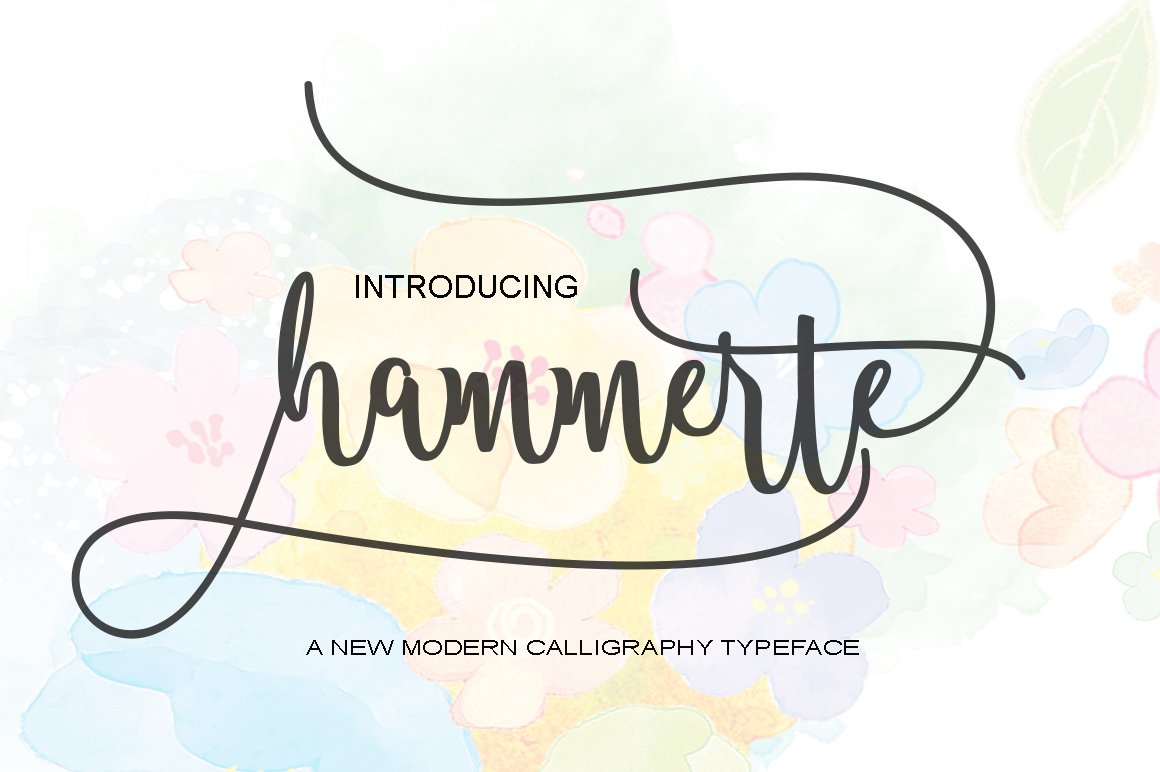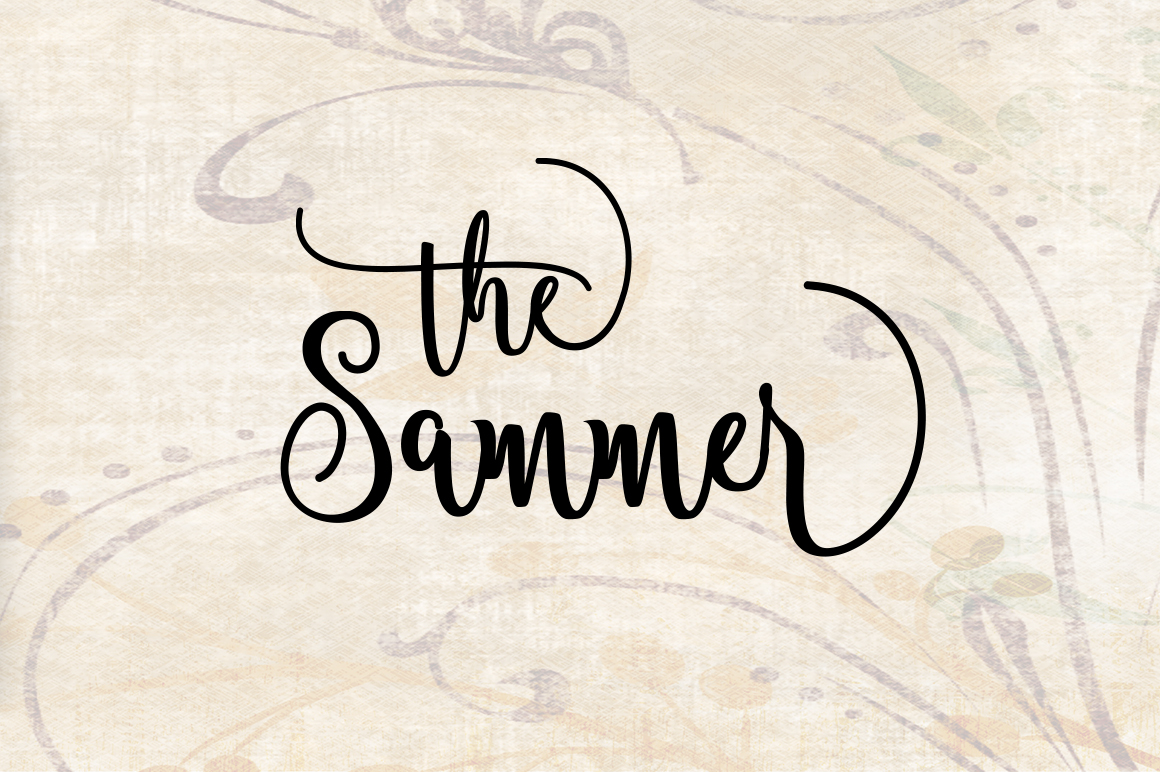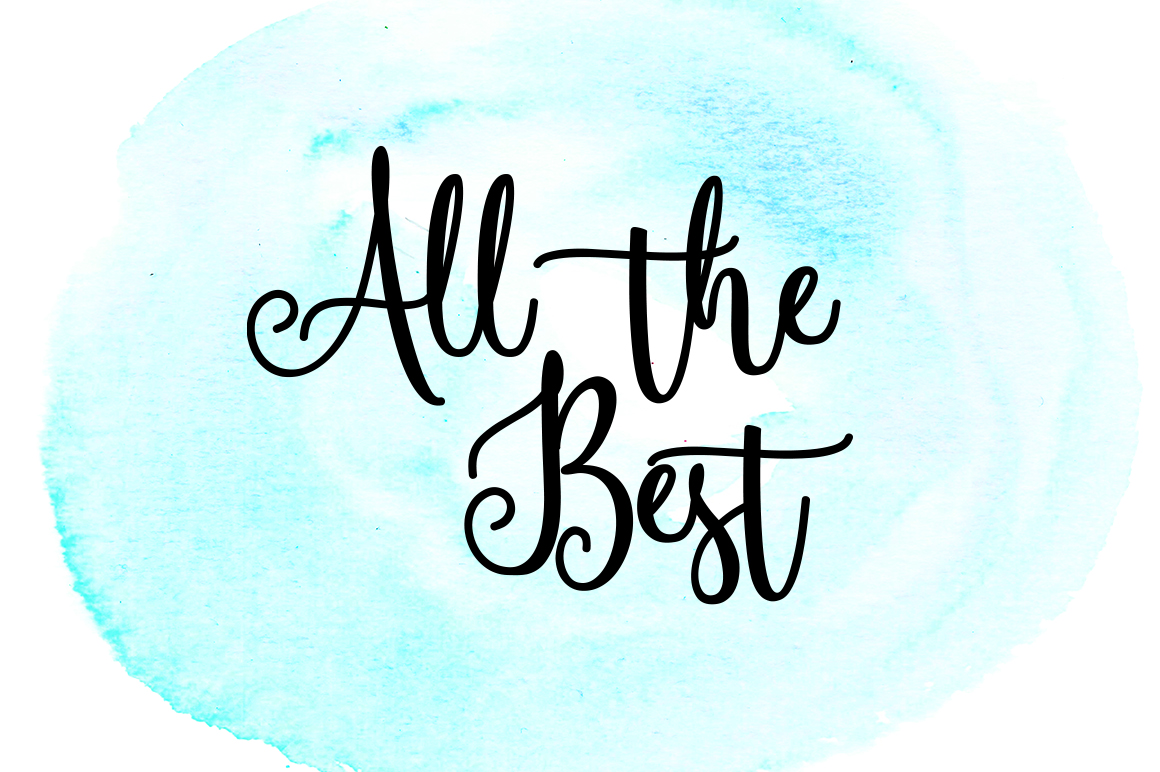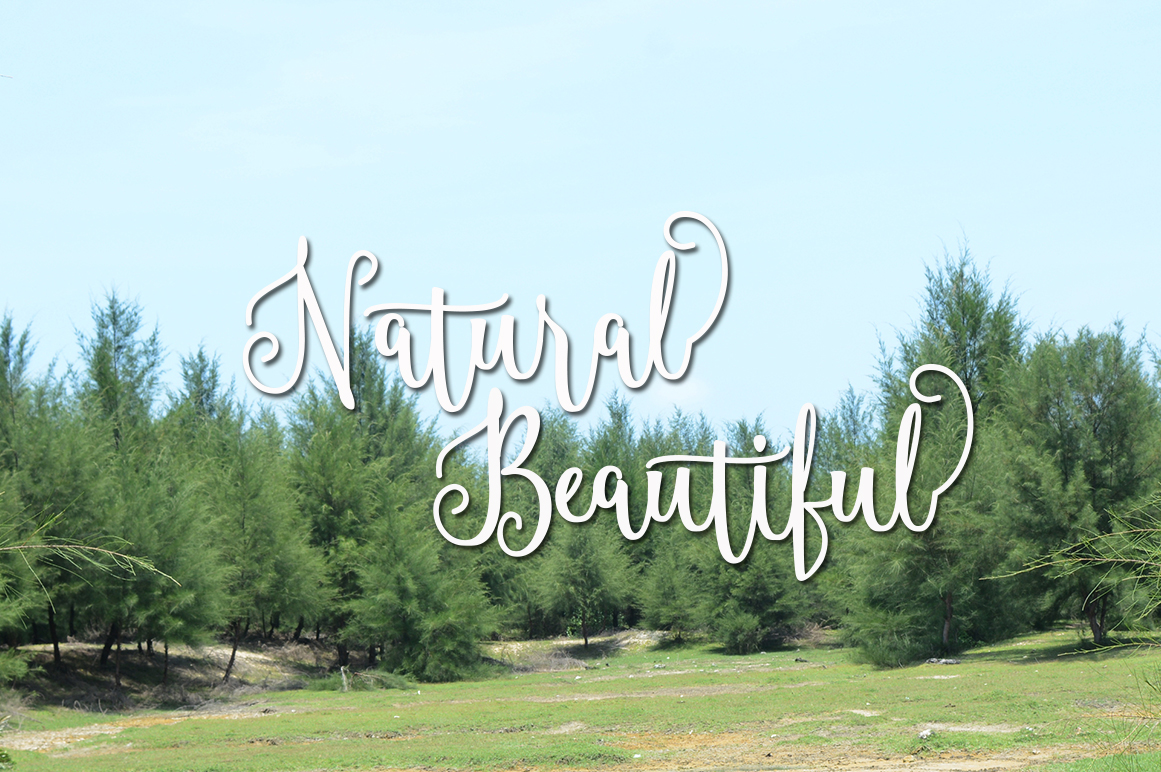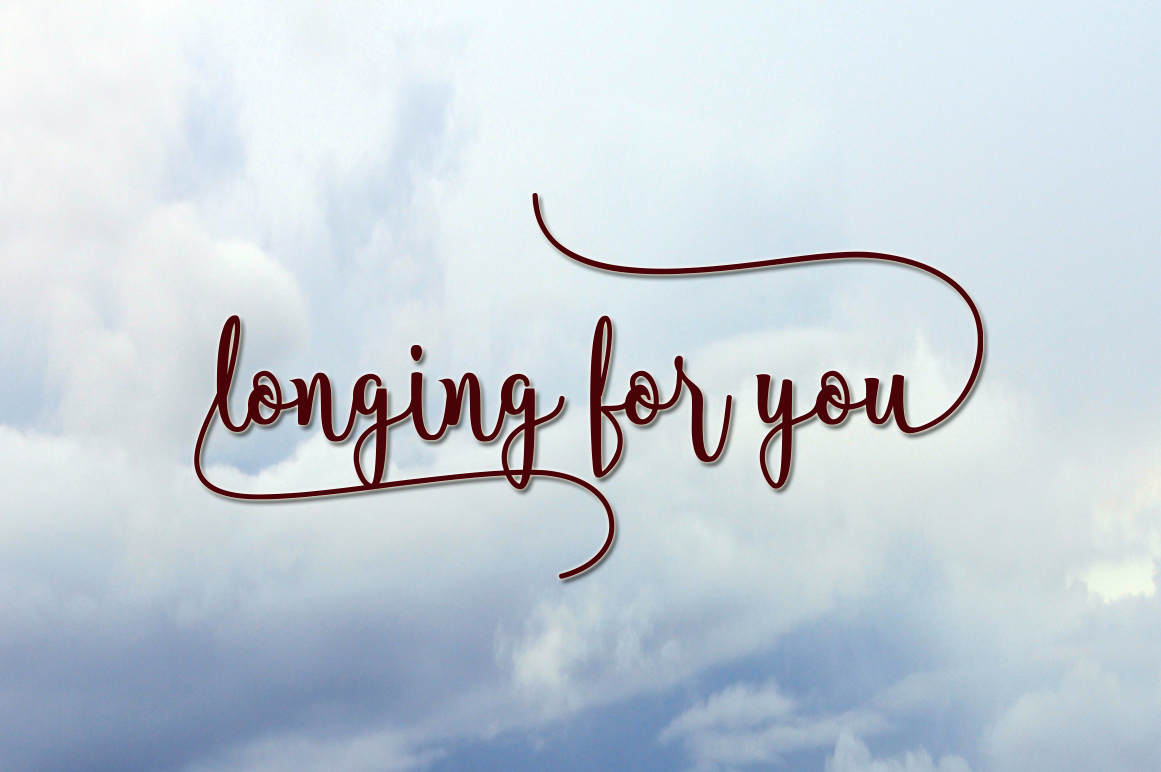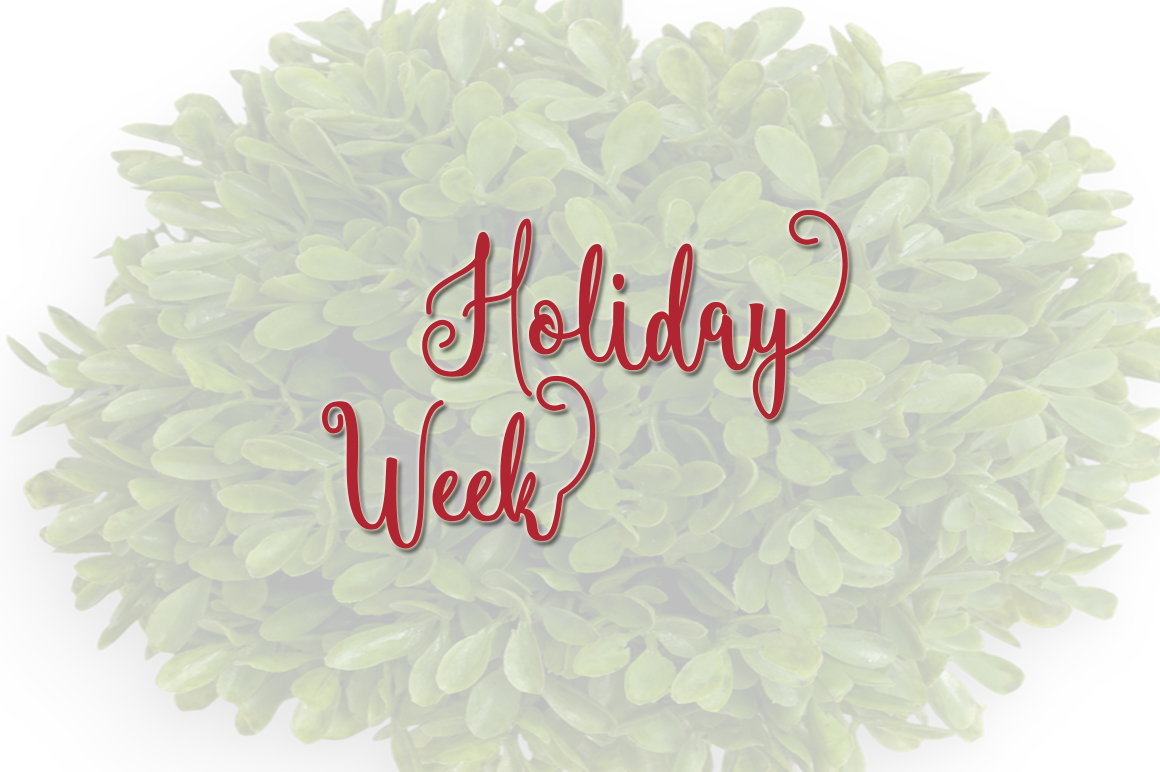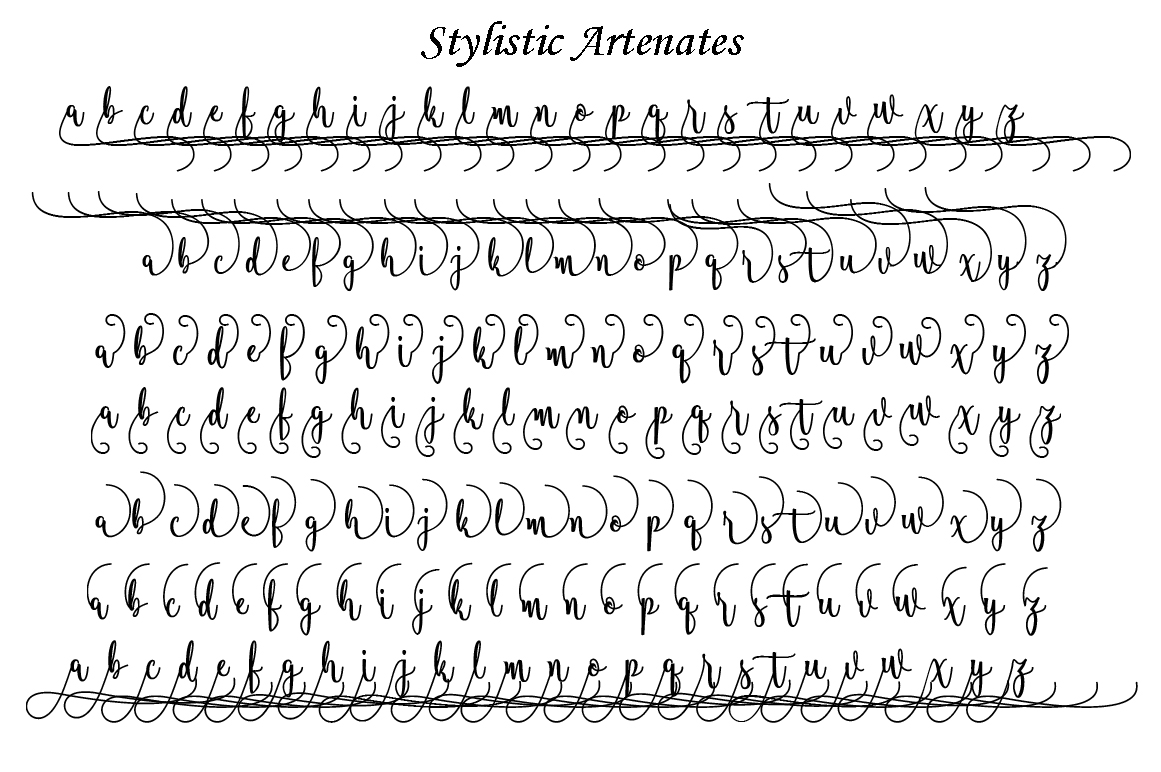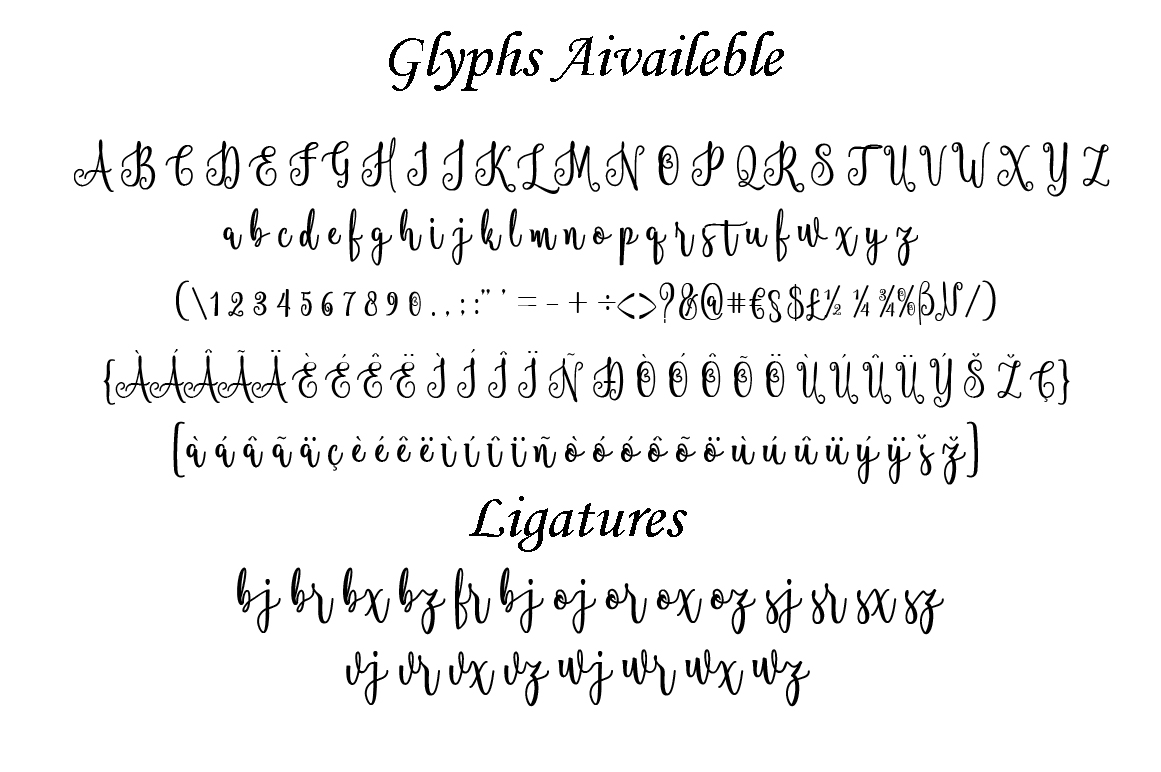
HomeScript FontsHammerte Font Script Fonts Hammerte Font FacebookXPinterestWhatsApp Hammerte Font Poster 2 Hammerte Font Poster 3 Hammerte Font Poster 4 Hammerte Font Poster 5 Hammerte Font Poster 6 Hammerte Font Poster 7 Hammerte Font Poster 8 About Hammerte Font Hammerte is a stylish script created by Polem. Comes with 419+ glyphs and 205 alternate characters. DOWNLOAD ON CREATIVE FABRICAThis font is sold and delivered by Creative Fabrica. Font Canyon may earn a commission if you buy through this link. People also explored Lalahani Font Animation Font Pirates Deluxe Magic Sunshine Font Nachtron Bhuent Font Jungland Font Black Hole Font Antica Font Cabelita Script Font 305 0 TagsHammerte Font Previous articleShopping Script FontNext articleFlacacher Font LEAVE A REPLY Cancel reply Comment: Please enter your comment! Name:* Please enter your name here Email:* You have entered an incorrect email address! Please enter your email address here Website: Save my name, email, and website in this browser for the next time I comment. Personal Use Free Lovetle Personal Use Free Read more about this font Bridgetown Font Personal Use Free Read more about this font Ardilla Font Personal Use Free Read more about this font Sileighty Personal Use Free Read more about this font BLOG Top 7 Google Fonts Alternatives for Faster and Privacy-Friendly Web Design (2025) Top 7 Google Fonts Alternatives for Faster and Privacy-Friendly Web Design (2025) When it comes to web typography, Google Fonts has long been the go-to... Modern Sans-Serif Fonts That Brands Love in 2025 Using Fonts in Digital Marketing: Tips to Strengthen Your Brand Identity The 10 Best Handwriting Fonts to Add Personality to Your Designs